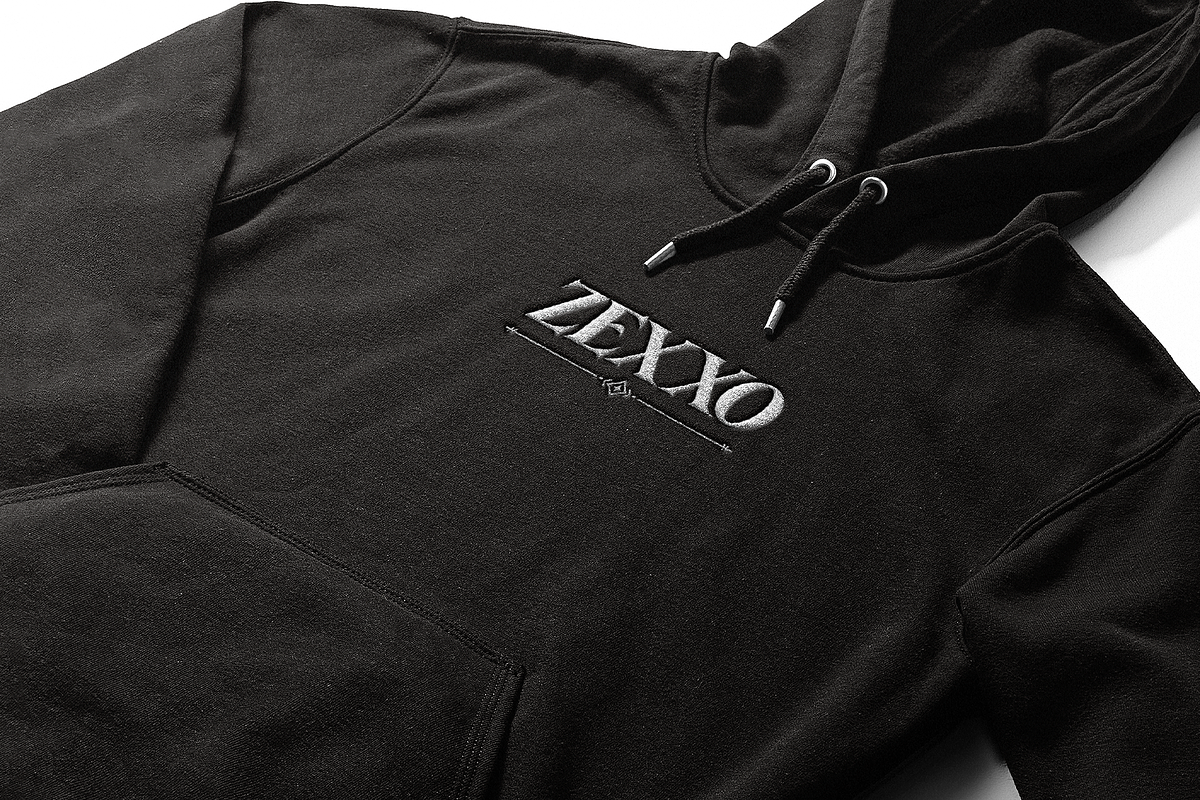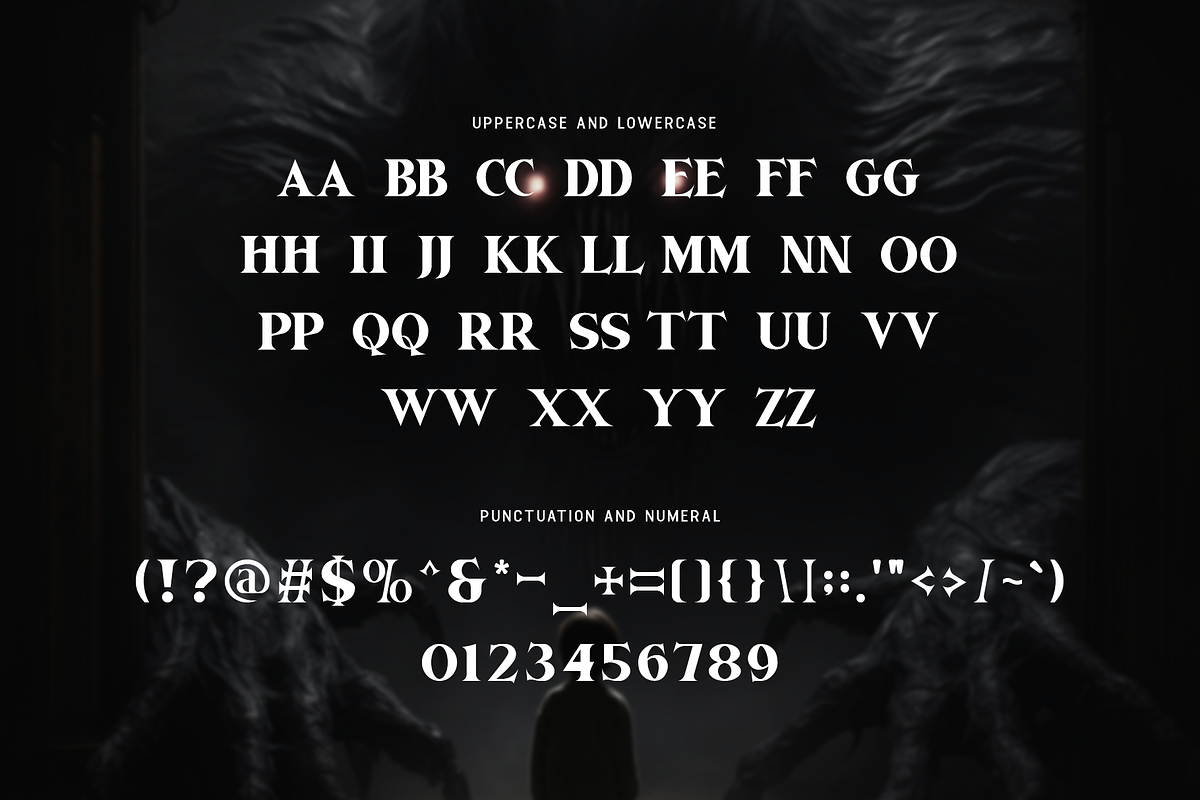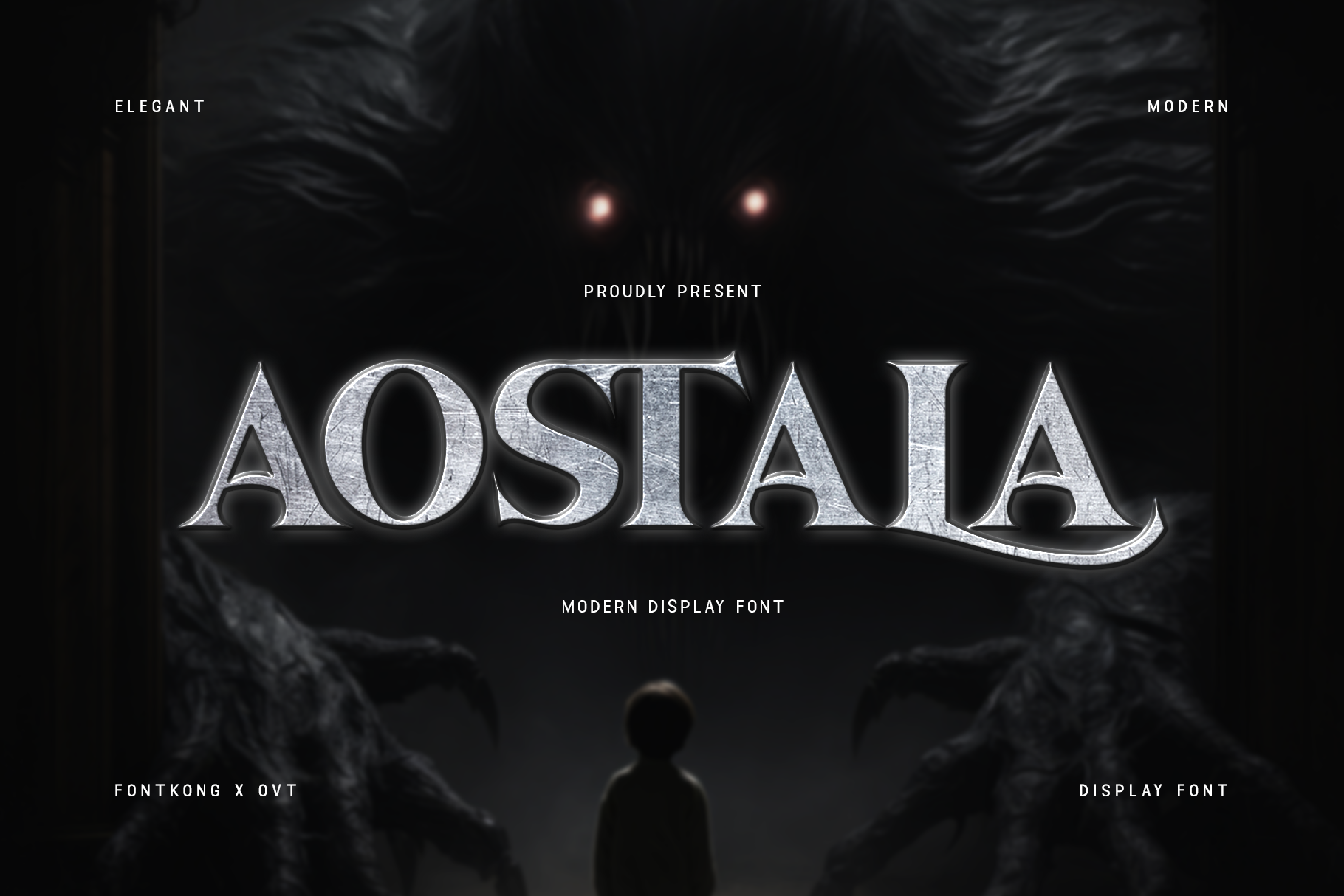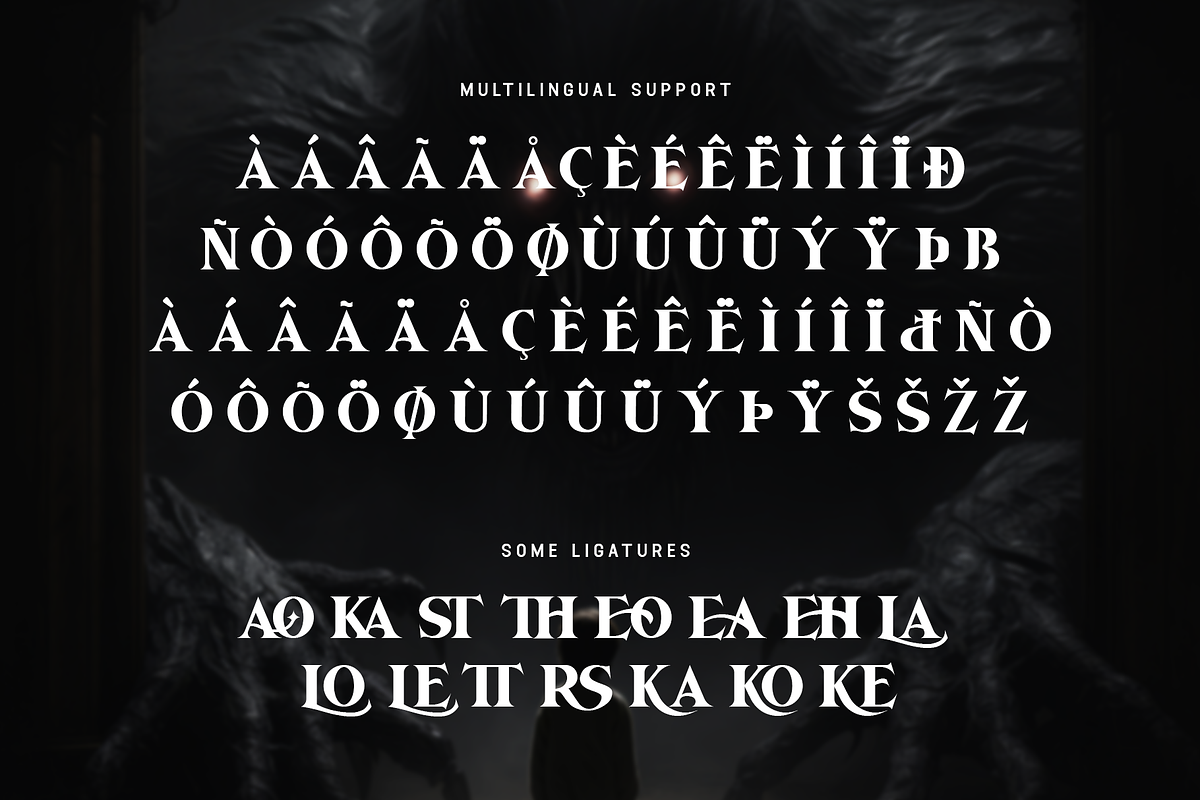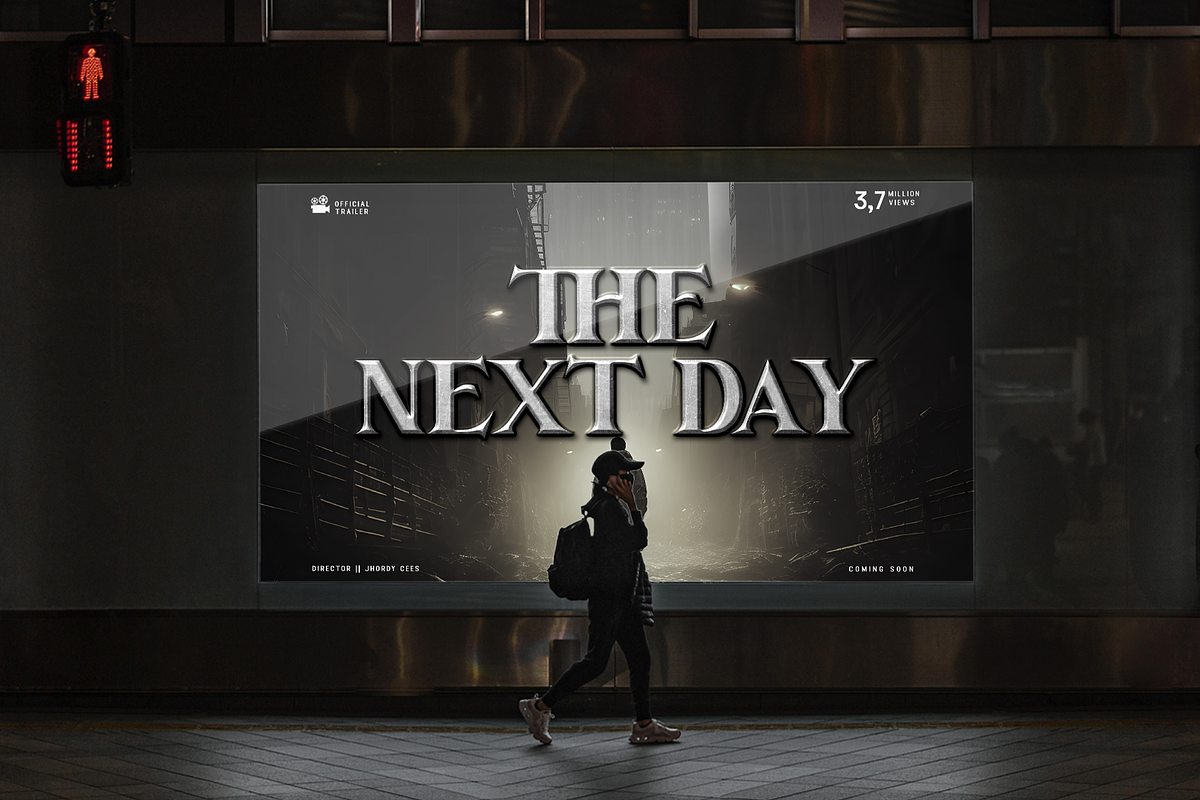
Aostala - Modern Display Font
Introducing "Aostala," a modern display font designed to make your projects shine with bold elegance. Perfect for designers seeking to create impactful and eye-catching visuals, Aostala combines contemporary style with a touch of sophistication.
Crafted with precision, Aostala is ideal for a variety of creative applications including posters, logos, headlines, branding materials, and more. Its strong lines and distinctive character ensure that your designs will capture attention and leave a lasting impression.
The "Aostala" font features a full set of uppercase and lowercase letters, numbers, and punctuation marks, providing versatility and flexibility for all your design needs. Whether you're working on print or digital projects, Aostala enhances your creations with its modern and stylish aesthetic.
Elevate your designs with the bold elegance of Aostala modern display font, and make a statement that stands out.